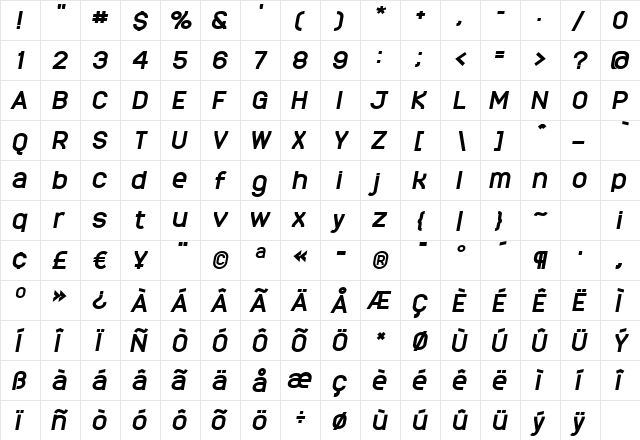
MonarkBold Oblique Regular Font Preview
Design Context for MonarkBold Oblique Typeface
MonarkBold Oblique offers clean, dependable letterforms without strong stylistic allegiance, making it a practical choice for designers who need flexibility. Its italic angle brings a sense of urgency and motion to the letterforms. Its bold stroke weight gives it real presence on the page.
Pro Tip: Try MonarkBold Oblique for annotation and caption copy alongside an upright companion — the contrast in angle creates a dynamic but ordered typographic system.